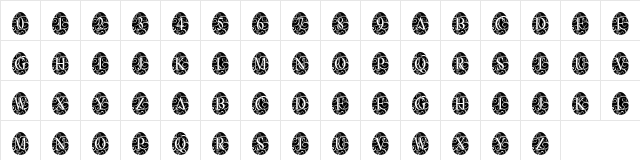
Easters_Here Regular
Design Context for Easters_Here Typeface
Easters_Here is a composed and adaptable typeface that performs quietly and consistently across a wide range of design contexts.